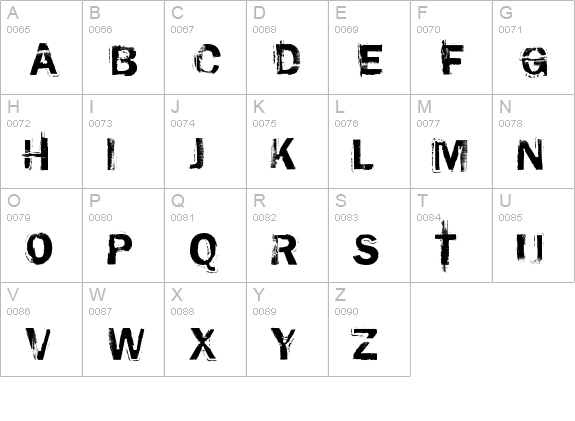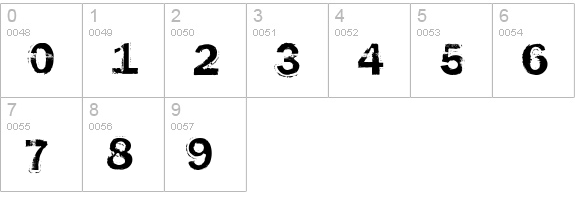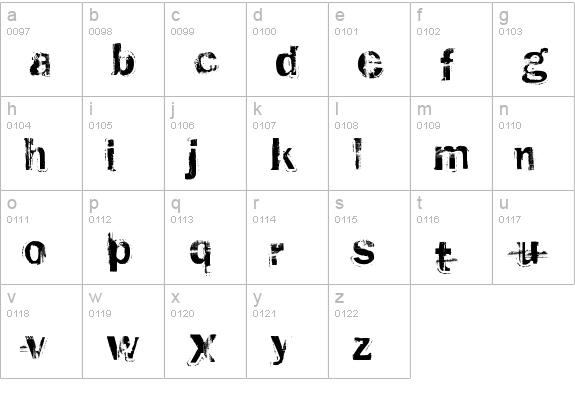
rusted plastic Font Details
The rusted plastic font is a unique and eye-catching typeface that combines the rustic charm of weathered metal with the modern twist of plastic. Its worn and aged appearance gives it a vintage feel, perfect for adding character and personality to your designs. This font is freely available to download at FontsMarket.com, making it a versatile and accessible option for all your creative projects. Embrace the beauty of imperfection with the rusted plastic font and make your designs stand out with its distinctive style.